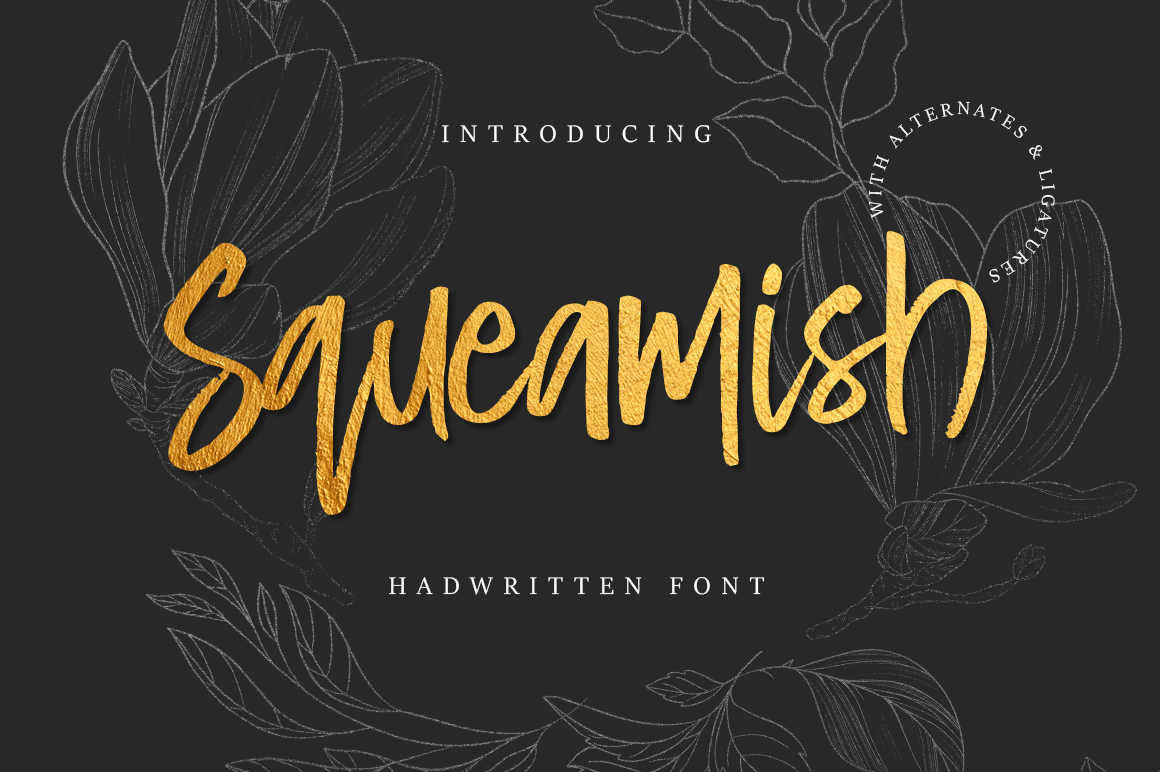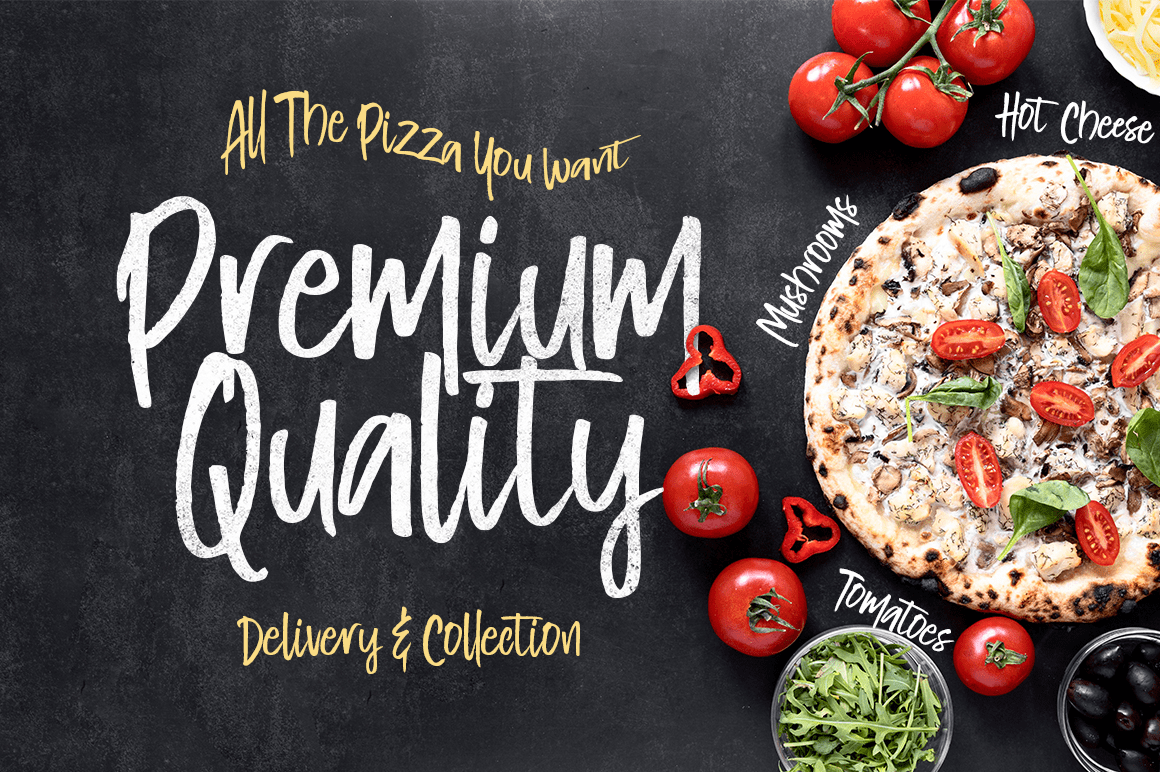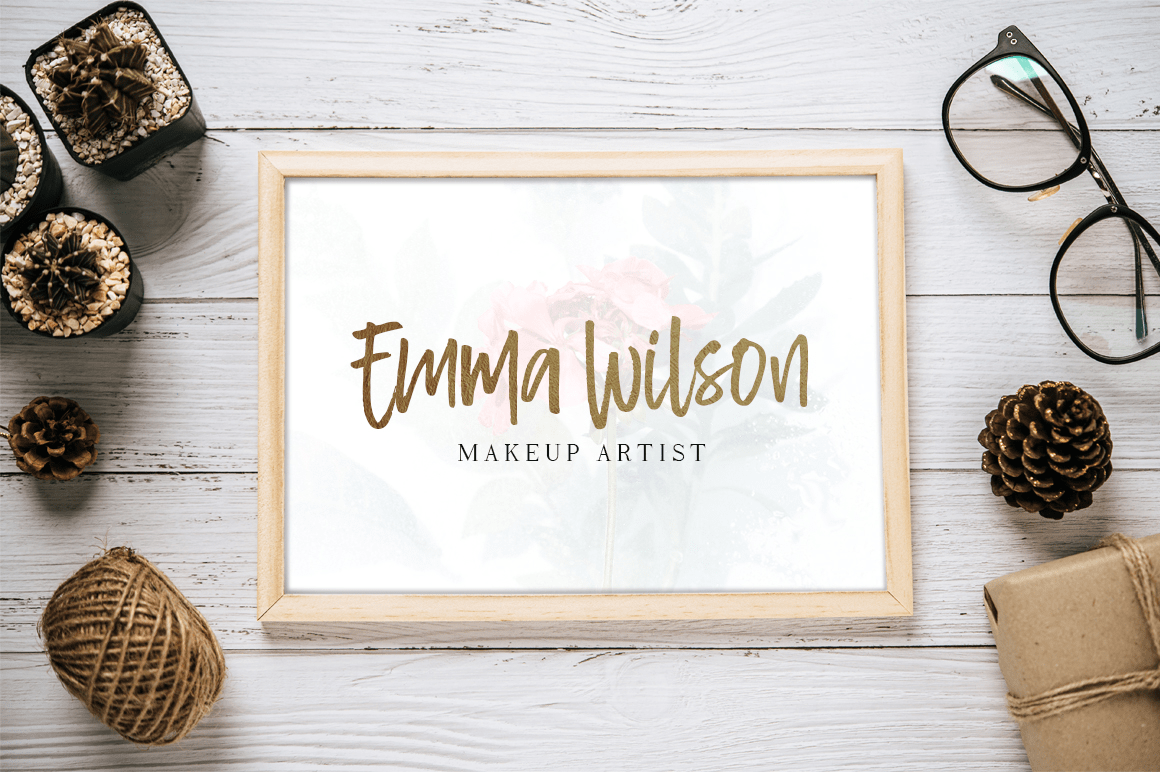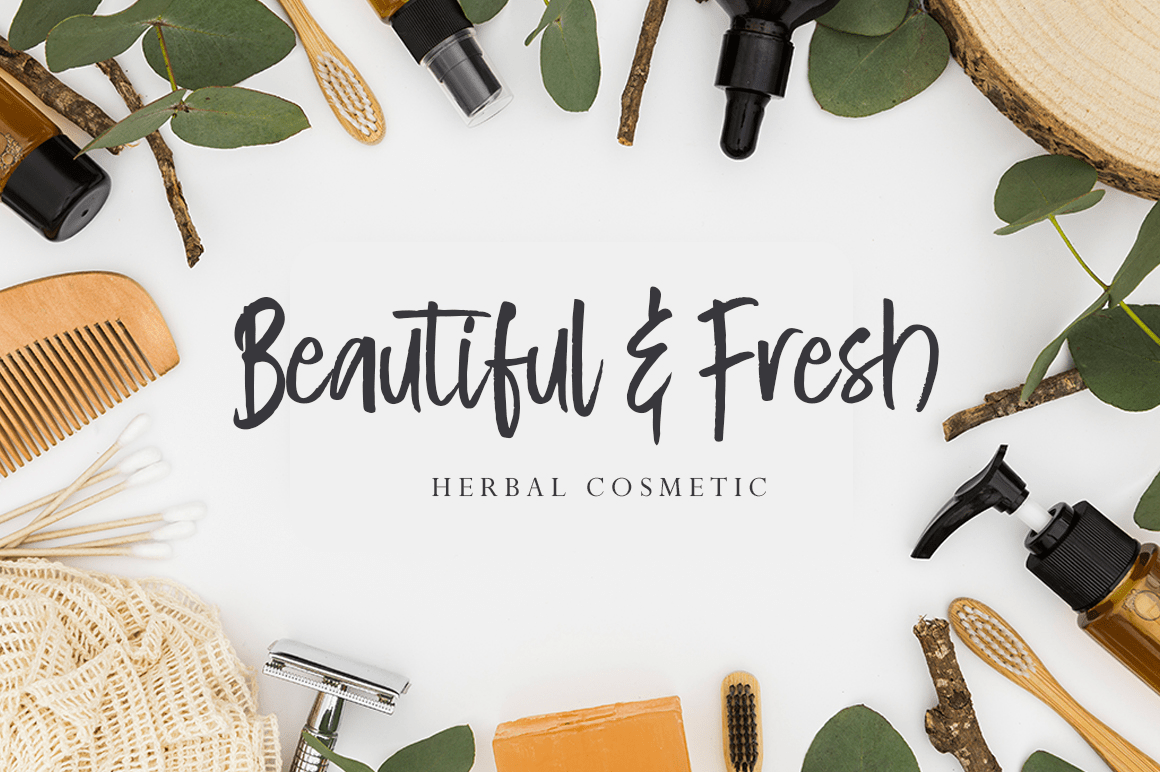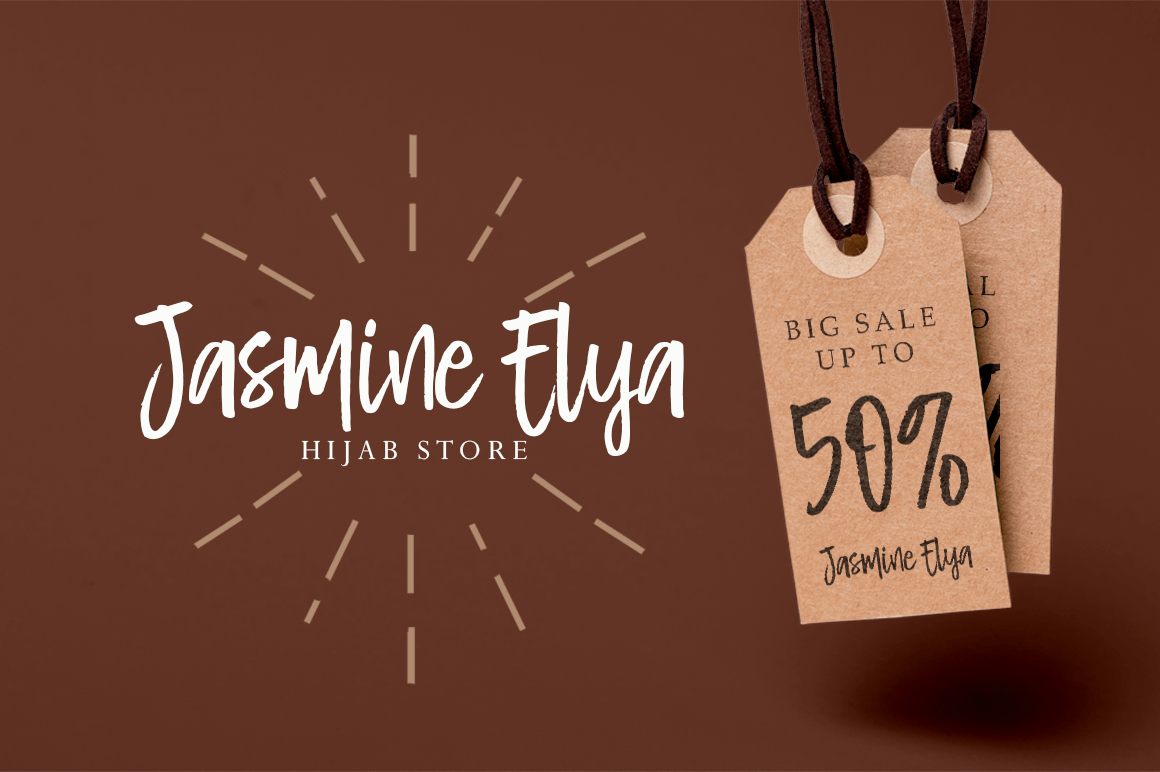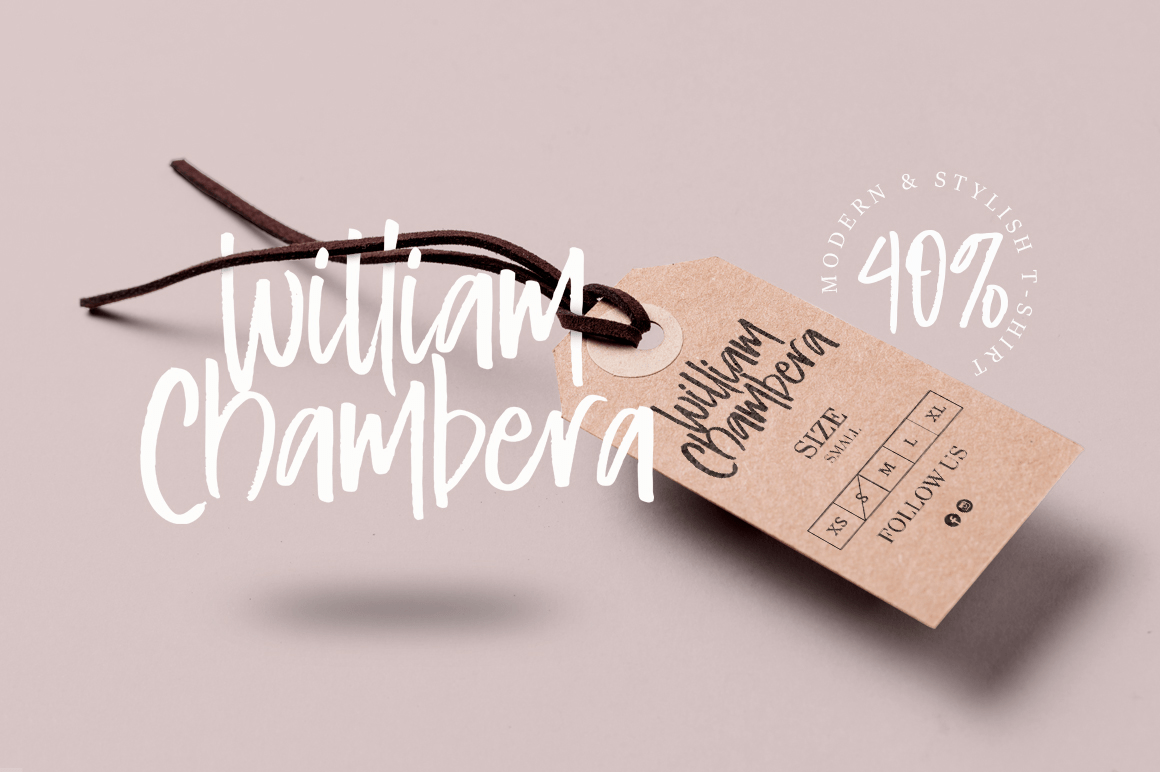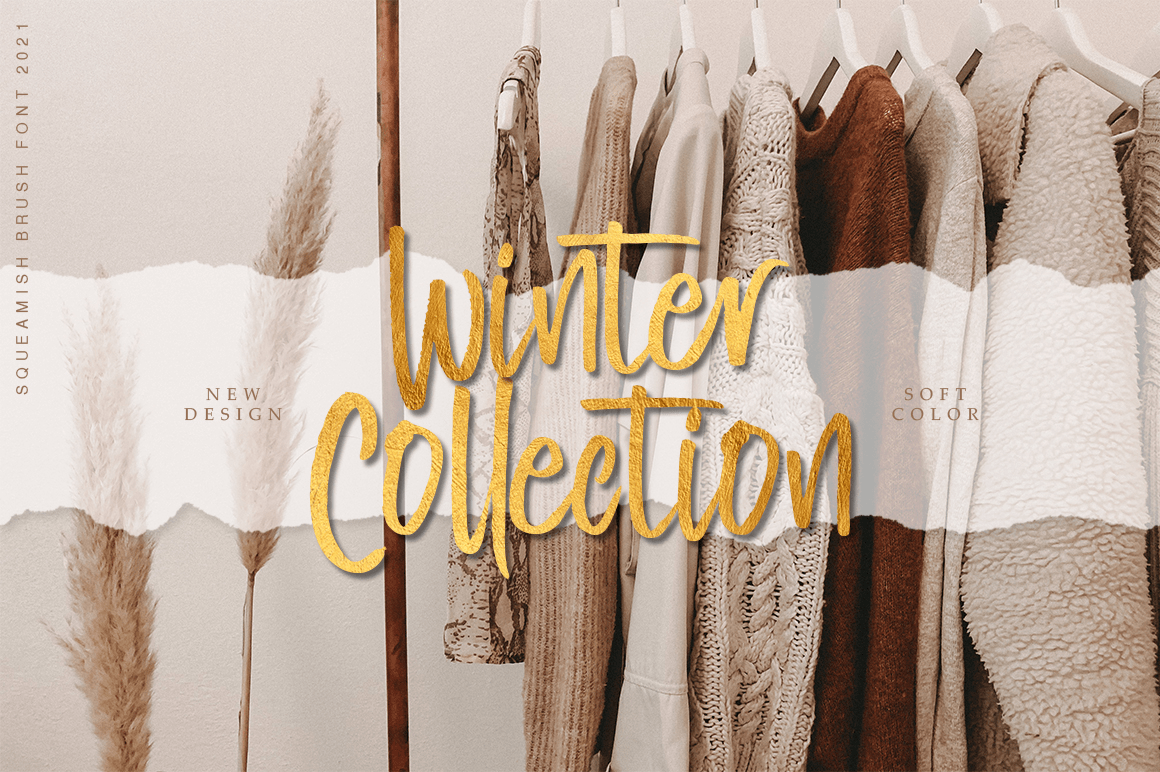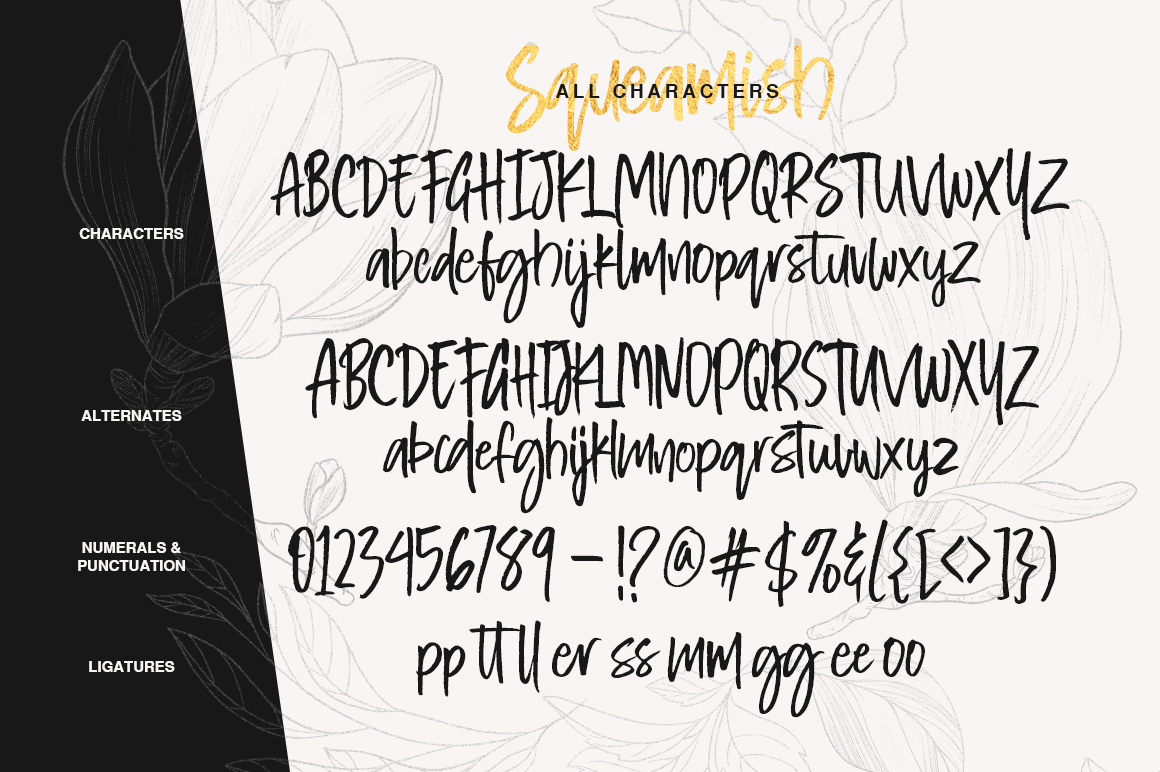
Squeamish
A fabulously fun yet elegant script font with tons of energy, allowing you to create beautiful hand-made typography in an instant. With extra bouncy curves & loops, Squeamish is guaranteed to make your text stand out - perfect for logos, printed quotes, invitations, cards, product packaging, headers and whatever your imagination holds.
What's really awesome is that Squeamish comes with a complete set of lowercase alternates, which allows you to create even more authentic custom-feel text. Another great feature is the bonus ornaments font, which allows you to add some really unique and elegant finishing touches to your script text.